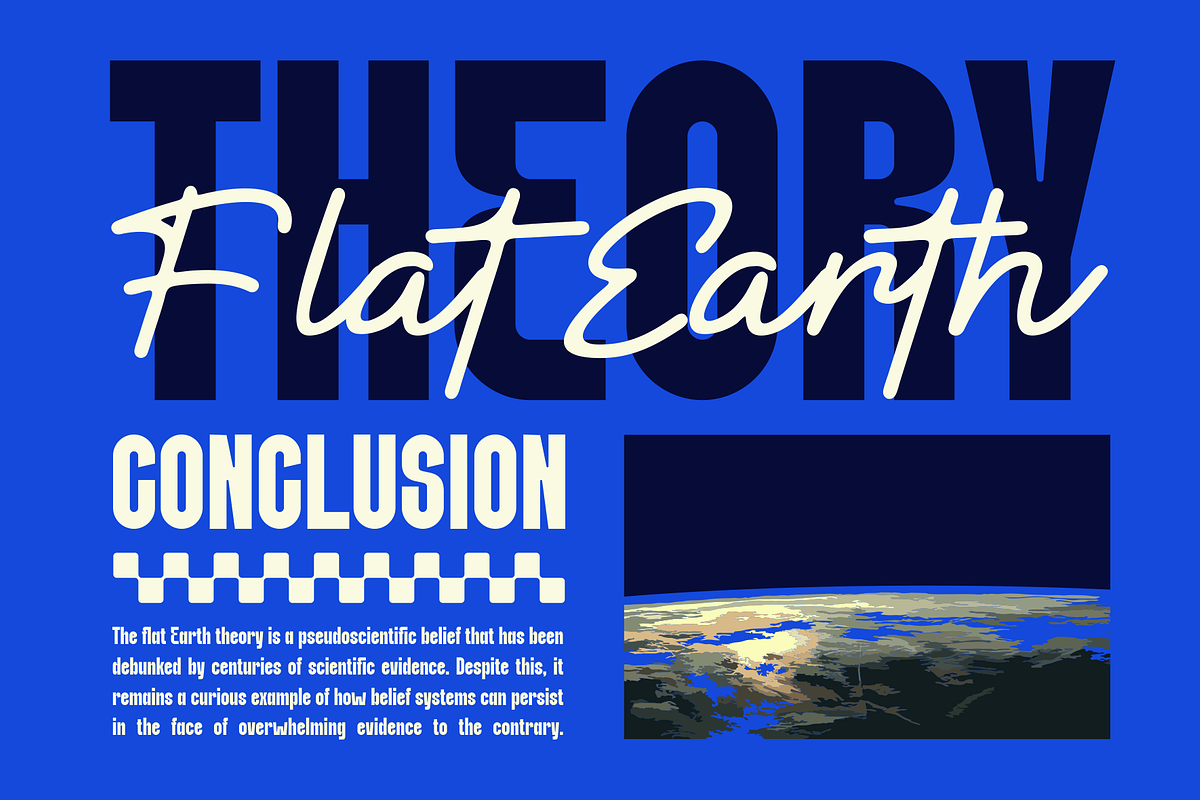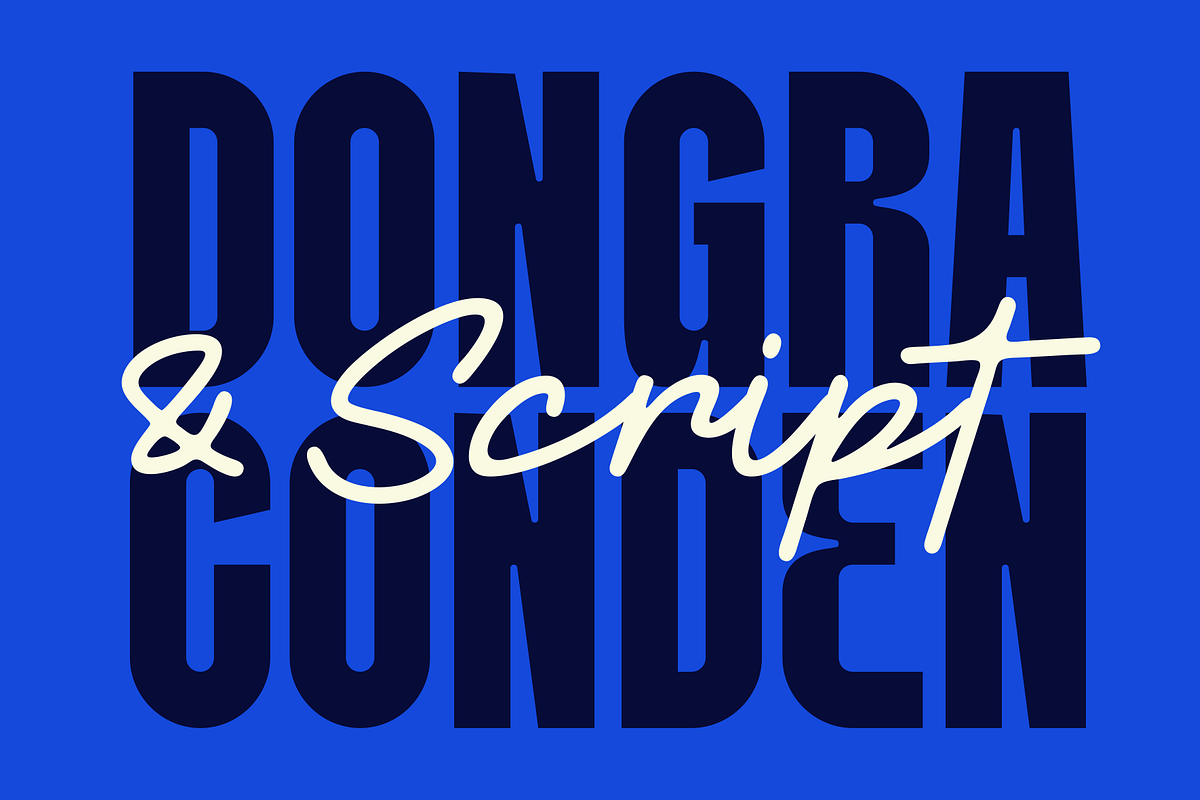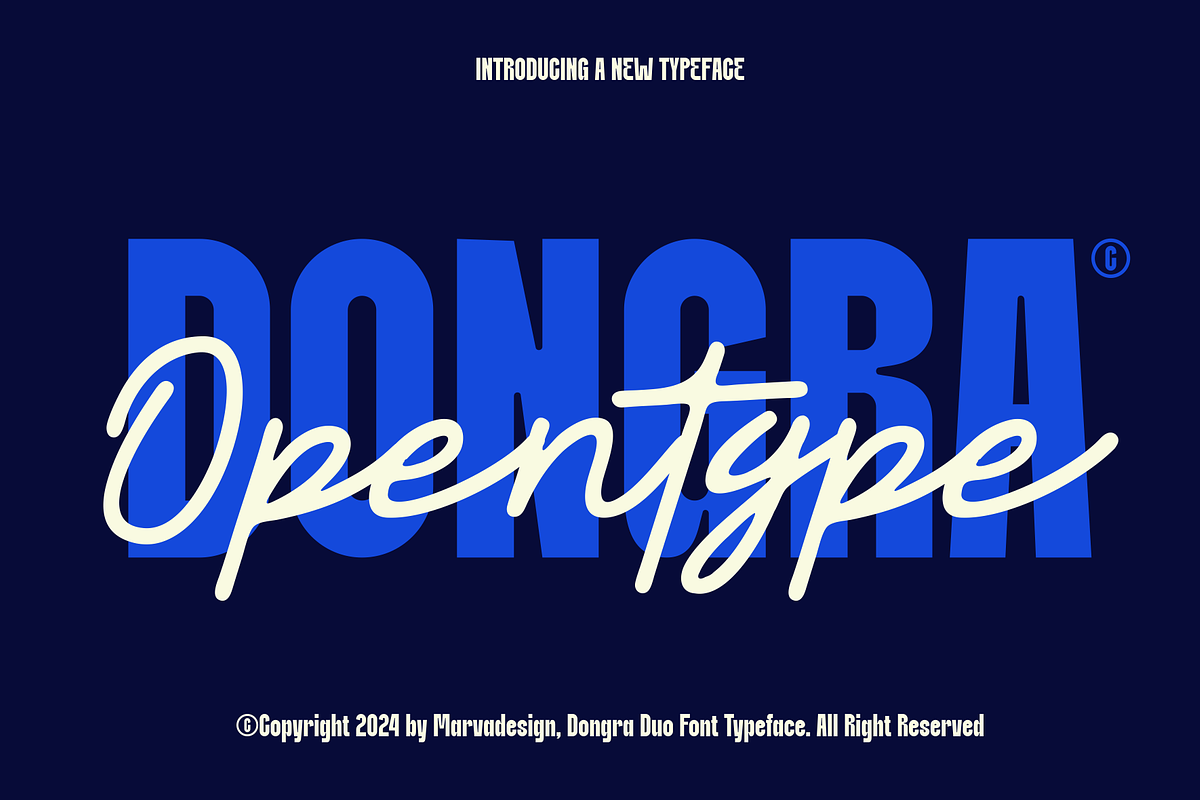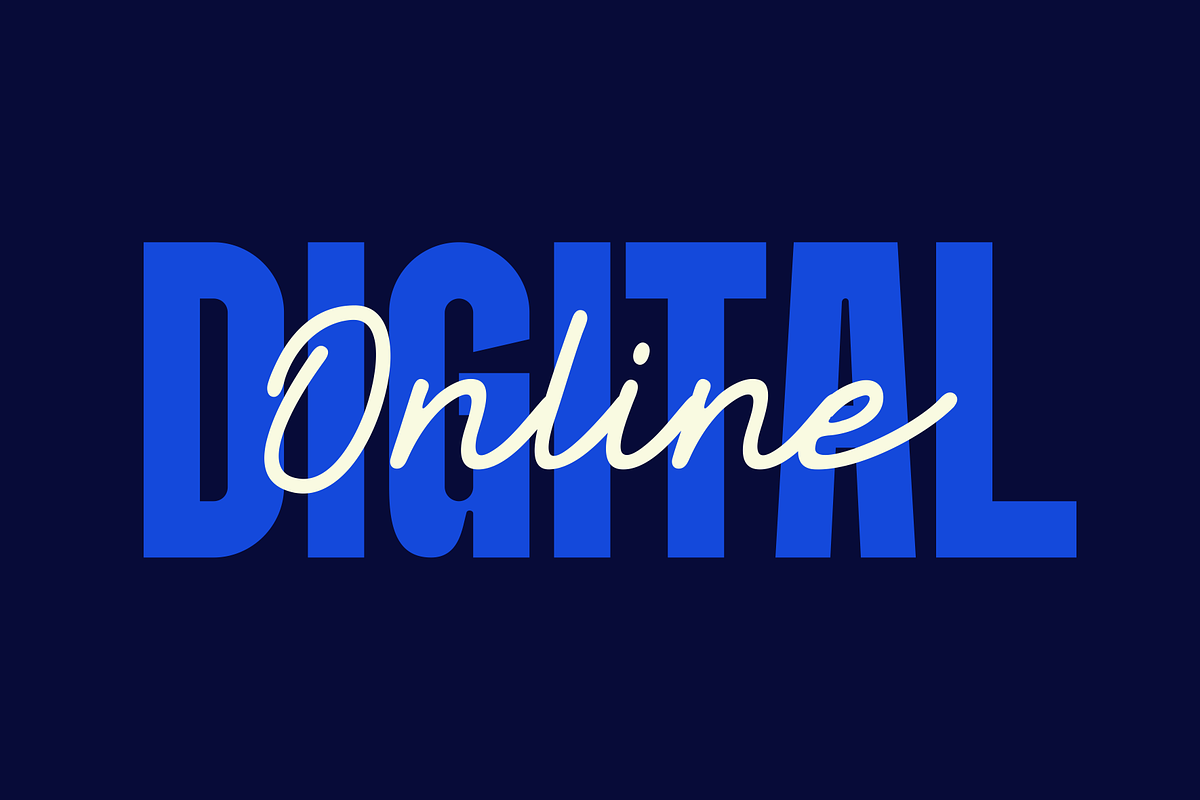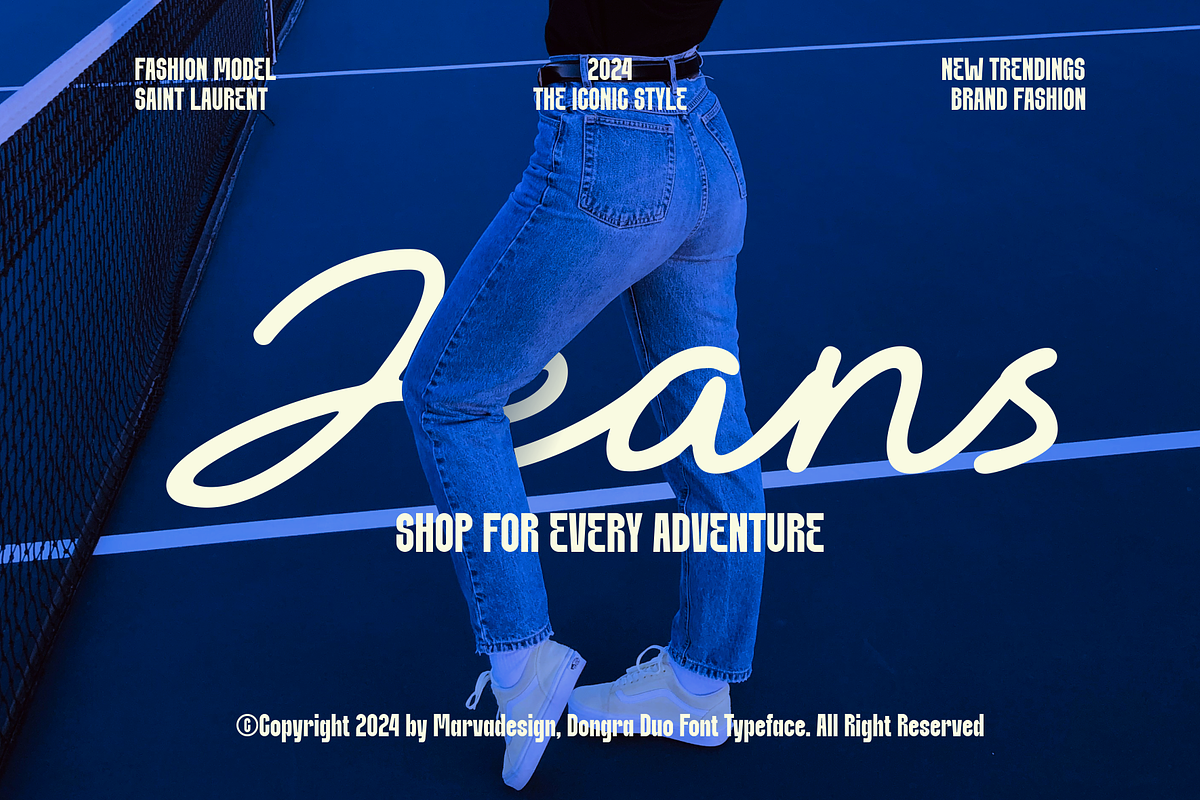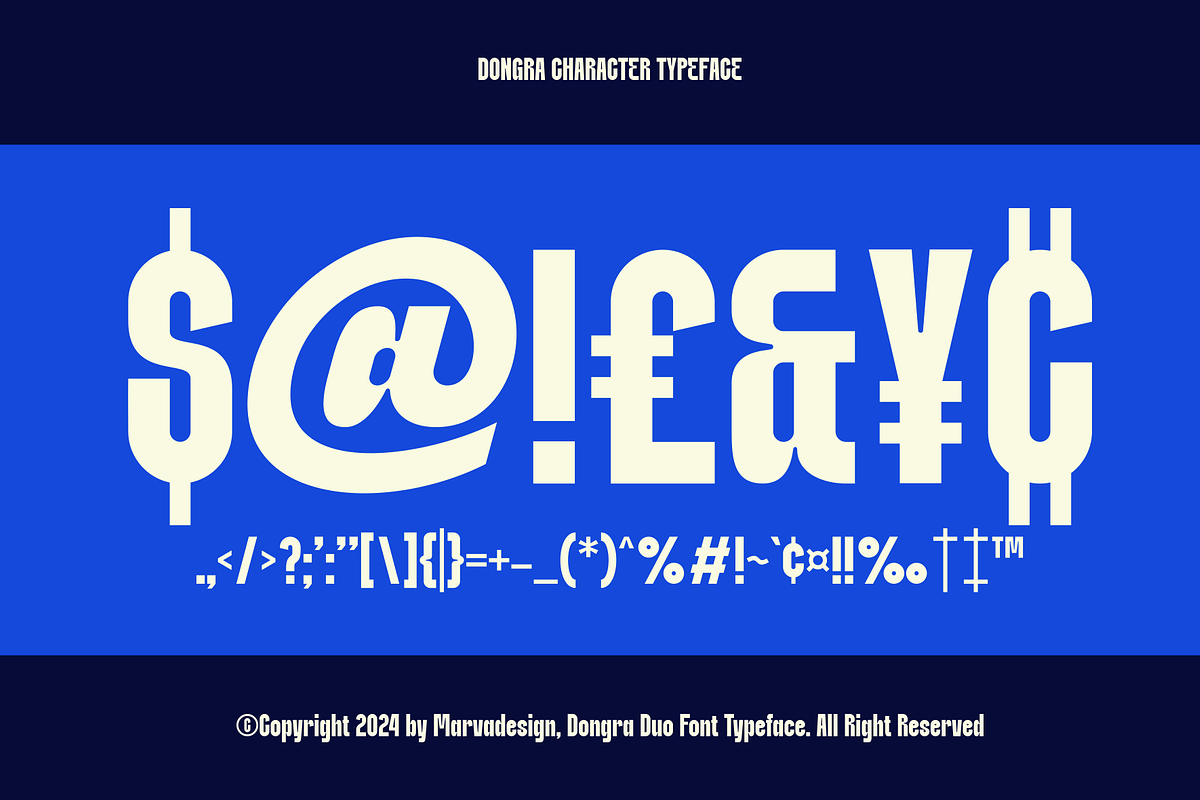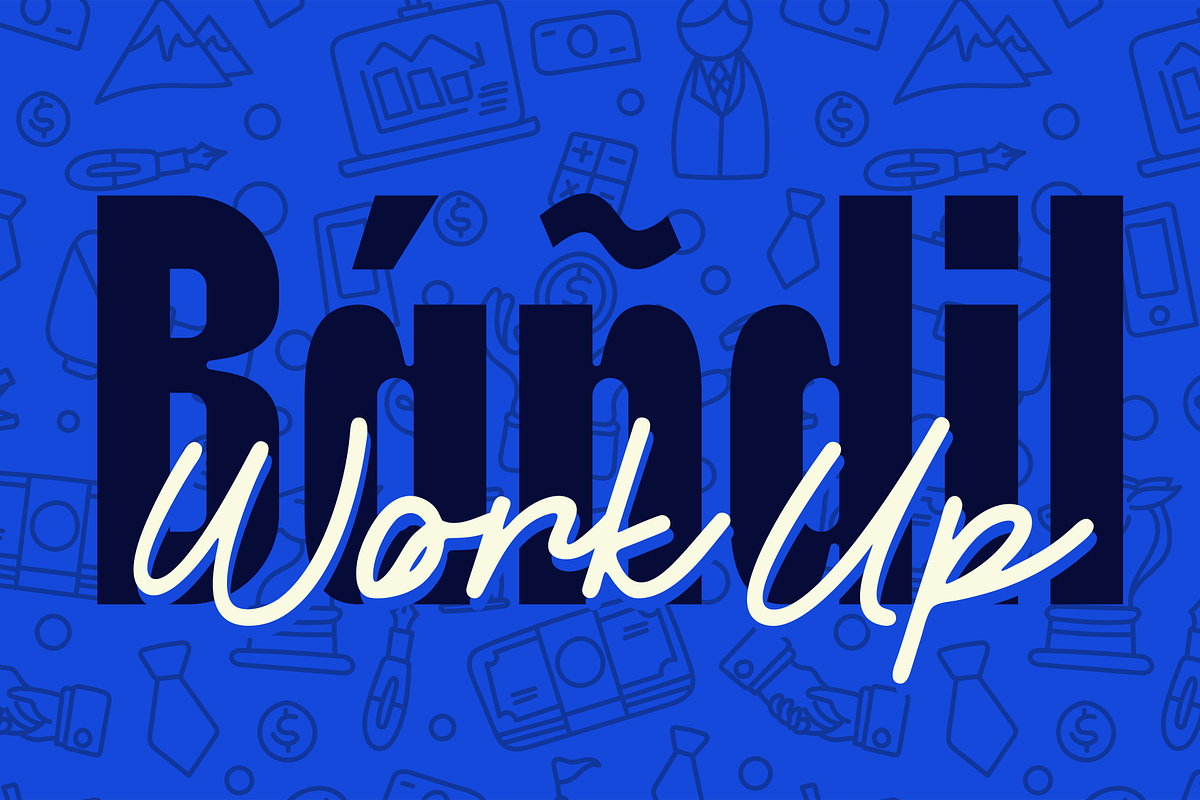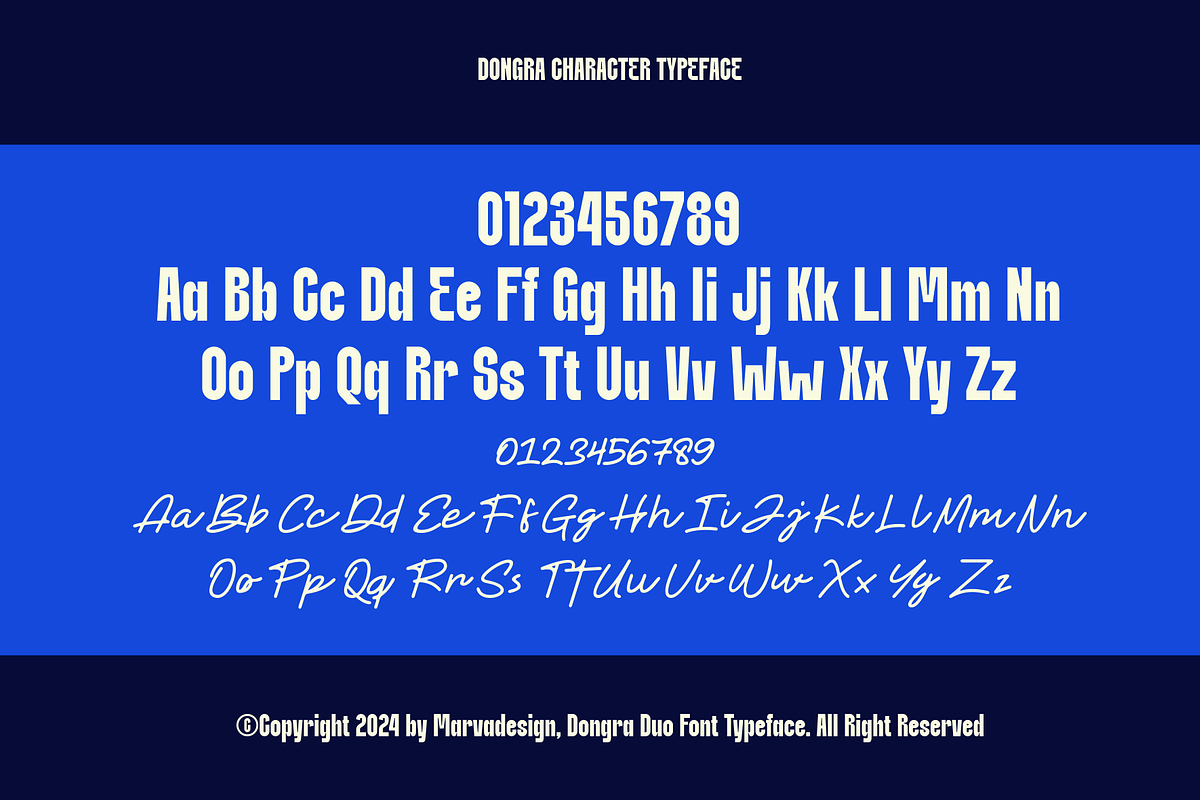
Dongra - Duo Font
Introducing New Typeface Dongra is a versatile and unique typeface that comes in two distinct styles: Condensed and Script. Each style brings its own flavor and character, catering to various design needs and preferences.
Dongra Condensed
- Style: Modern
- Characteristics: Sleek and Clean
- High Legibility: Despite its condensed nature, the font maintains high legibility, making it suitable for both display and body text.
- Minimalistic: The modern style of Dongra Condensed embodies minimalism, with simple lines and a lack of unnecessary embellishments.
- Versatility: This style is ideal for a variety of applications, including headlines, posters, branding, and editorial design, where a contemporary look is desired.
Dongra Script
- Style: Handwritten Line
- Characteristics: Handcrafted Feel
- Dynamic and Expressive: The script style offers a dynamic and expressive feel, making it perfect for creative projects that require a personal touch.
- Varied Line Thickness: The varying thickness of the lines in Dongra Script adds to its authenticity, emulating the natural pressure and movement of handwriting.
- Elegance and Flow: The font flows gracefully from one letter to the next, adding an element of elegance and smoothness to any text it is used in.
- Use Cases: Ideal for invitations, greeting cards, logos, and any design work where a personal, handwritten style is desired.
In summary, Dongra offers a perfect balance between modernity and handcrafted charm through its two styles, Condensed and Script. The Condensed style brings a contemporary, sleek look, while the Script style offers a beautiful, handwritten appeal.